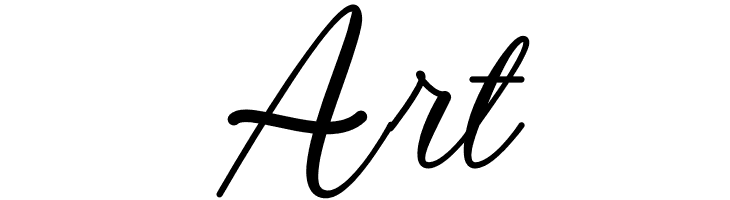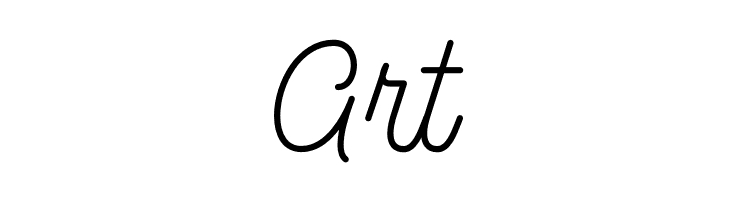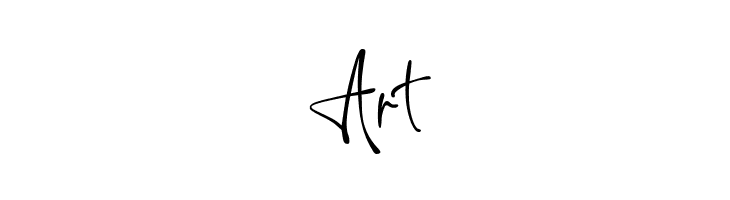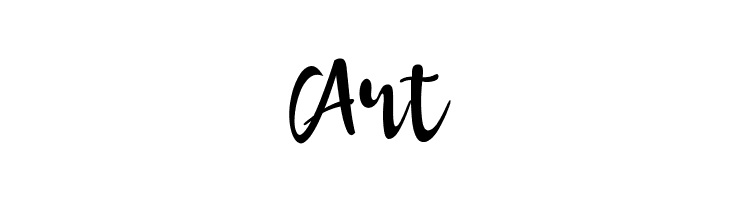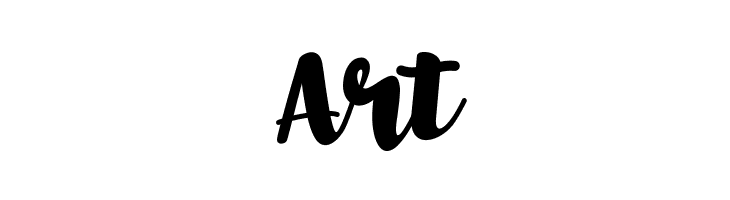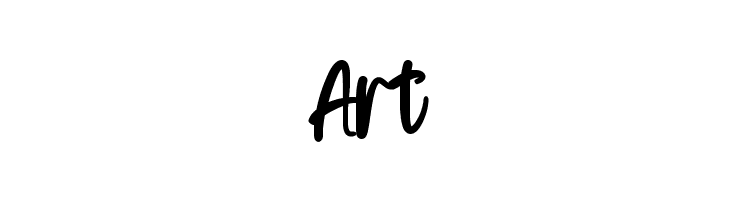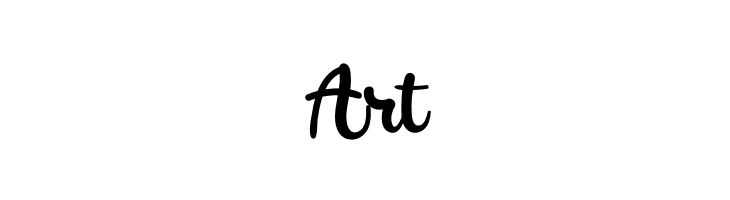
A fluid, elegant script font with connected strokes and consistent line thickness.
A flowing, elegant script font with a modern calligraphic style.
A sophisticated script font with flowing, cursive letters and elegant curves.
A bold, flowing script font with elegant curves and artistic style.
A casual, elegant handwritten font with fluid, connected letters.
A bold, flowing script font with a modern, elegant style.
A bold, flowing script font with a modern calligraphic style.
A bold, cursive font with a smooth, flowing handwritten style.
A bold, expressive handwritten font with fluid, cursive strokes.
A bold, playful script font with a handwritten style.